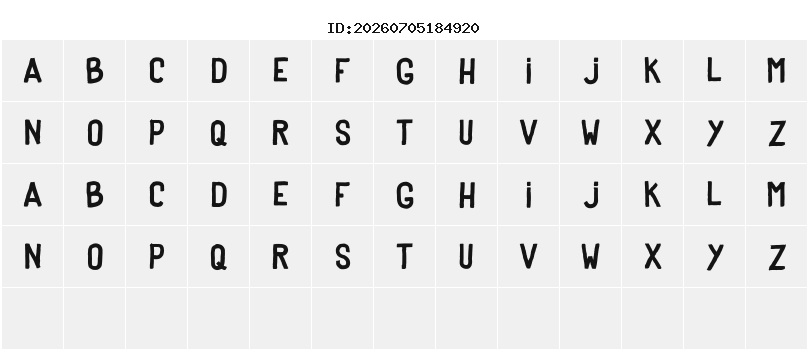
• Font Name: Dker
• Font Style: Poster
• Designer: Dker
About Dker.ttf
Dker.ttf is a modern, elegant sans-serif font designed for ultimate readability and visual harmony. Perfect for branding, headlines, web design, and print materials.